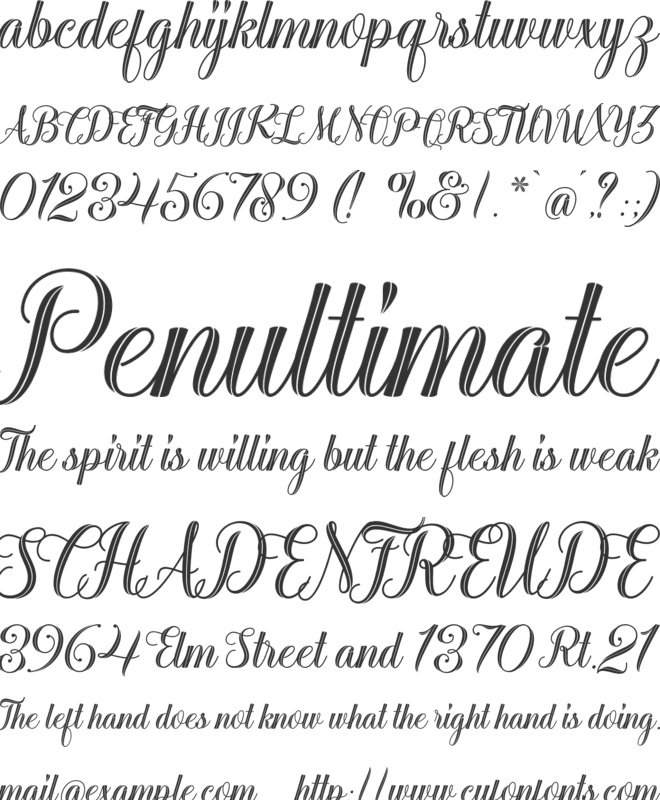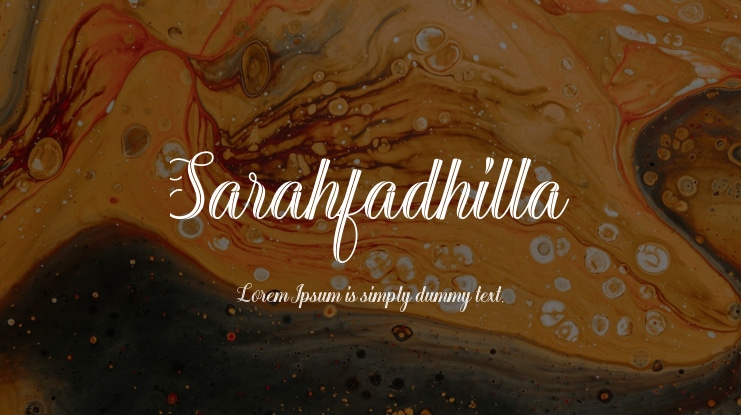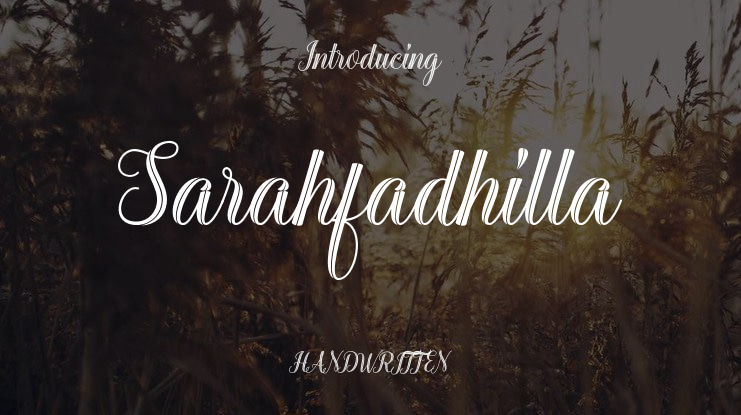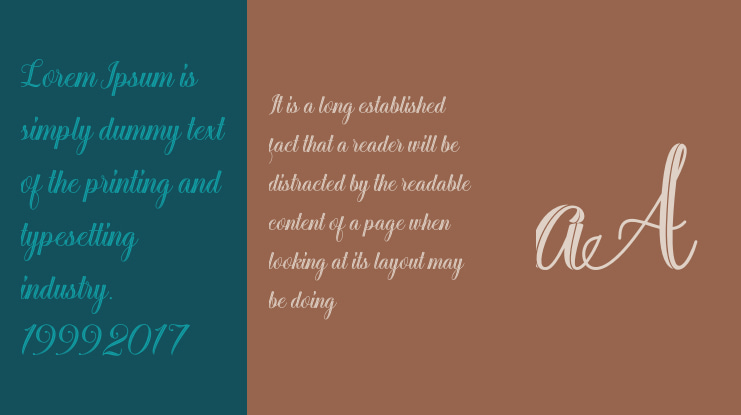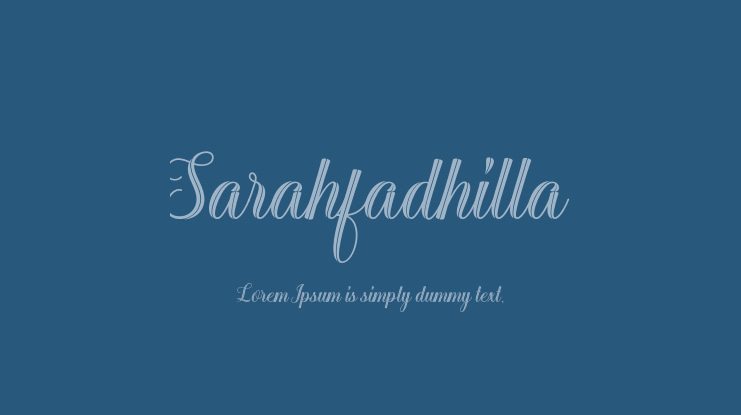
Sarahfadhilla Font
INTRODUCTION
Introducing Sarahfadhilla, a font with a unique personality. This versatile font can be used for various purposes such as logos, badges, packaging, titles, posters, t-shirts, greeting cards, and wedding invitations. The flowing characters of Sarahfadhilla allow you to create interesting messages. You can also mix and match it with the numerous alternative characters available, perfectly tailored to your project.
ALTERNATIVE CHARACTERS
This font provides a variety of alternative characters, which can be accessed through different OpenType features like Stylistic Alternate, Stylistic Sets, and Ligature. These features can be utilized in OpenType programs such as Adobe Illustrator, Adobe Photoshop, and Adobe InDesign.